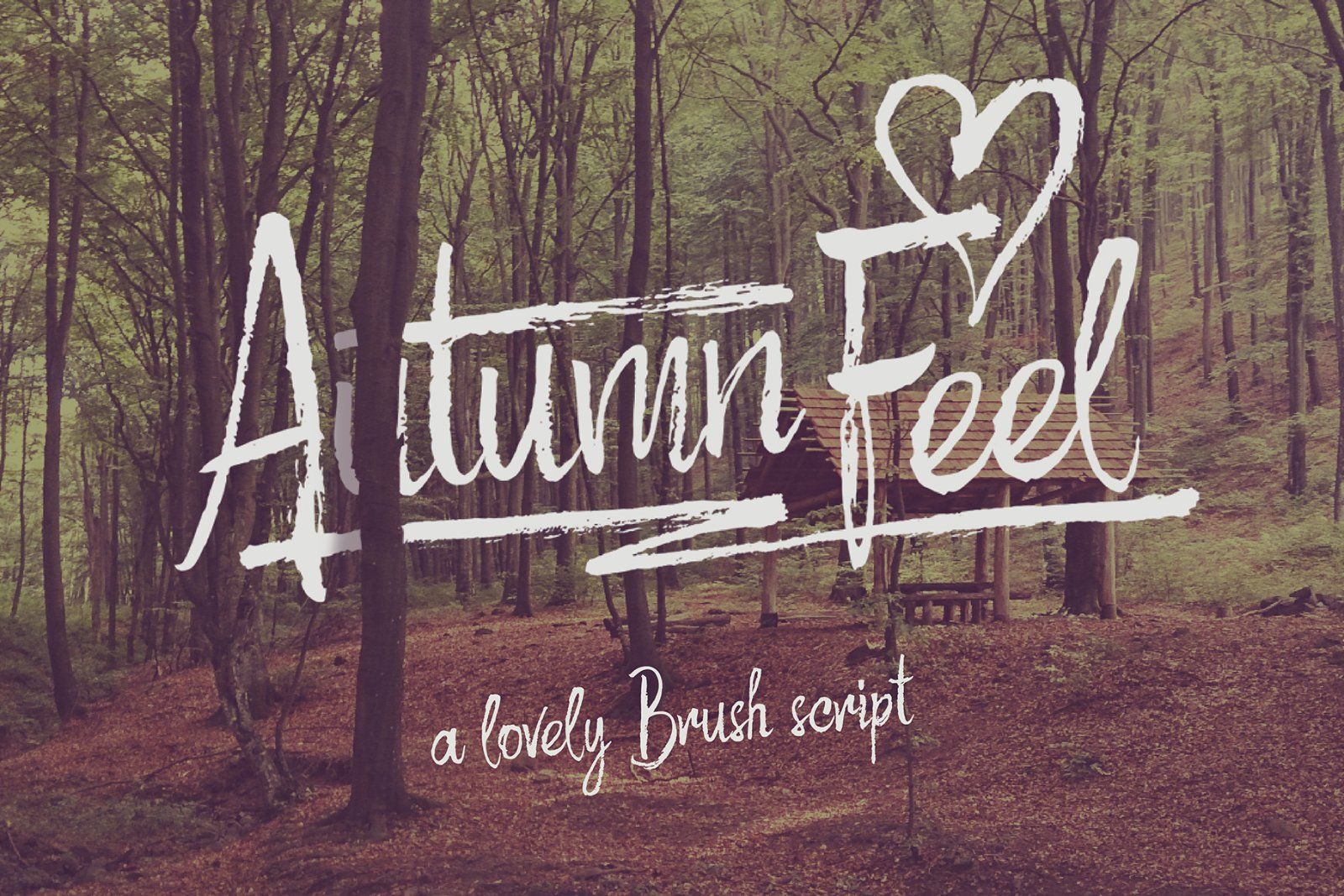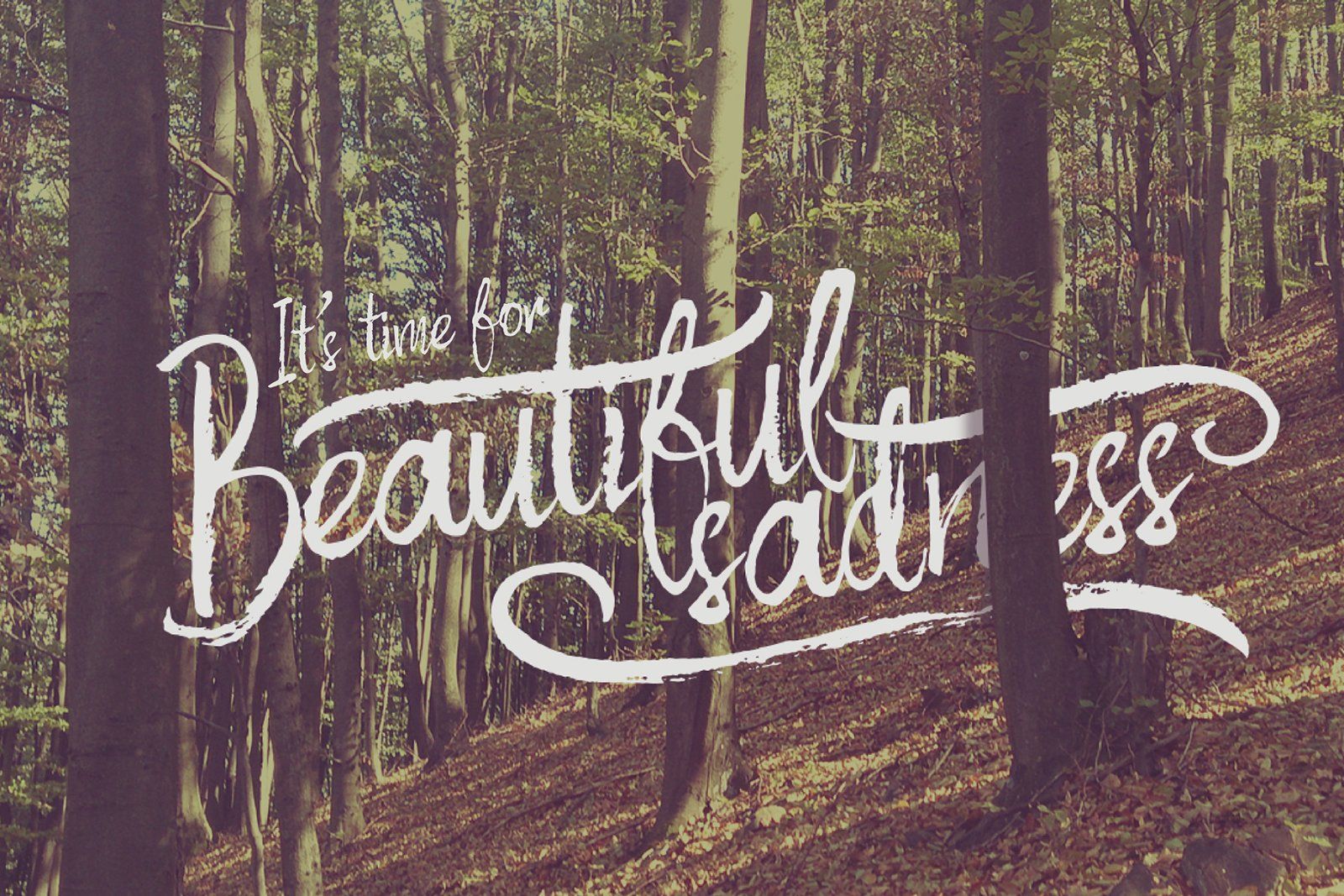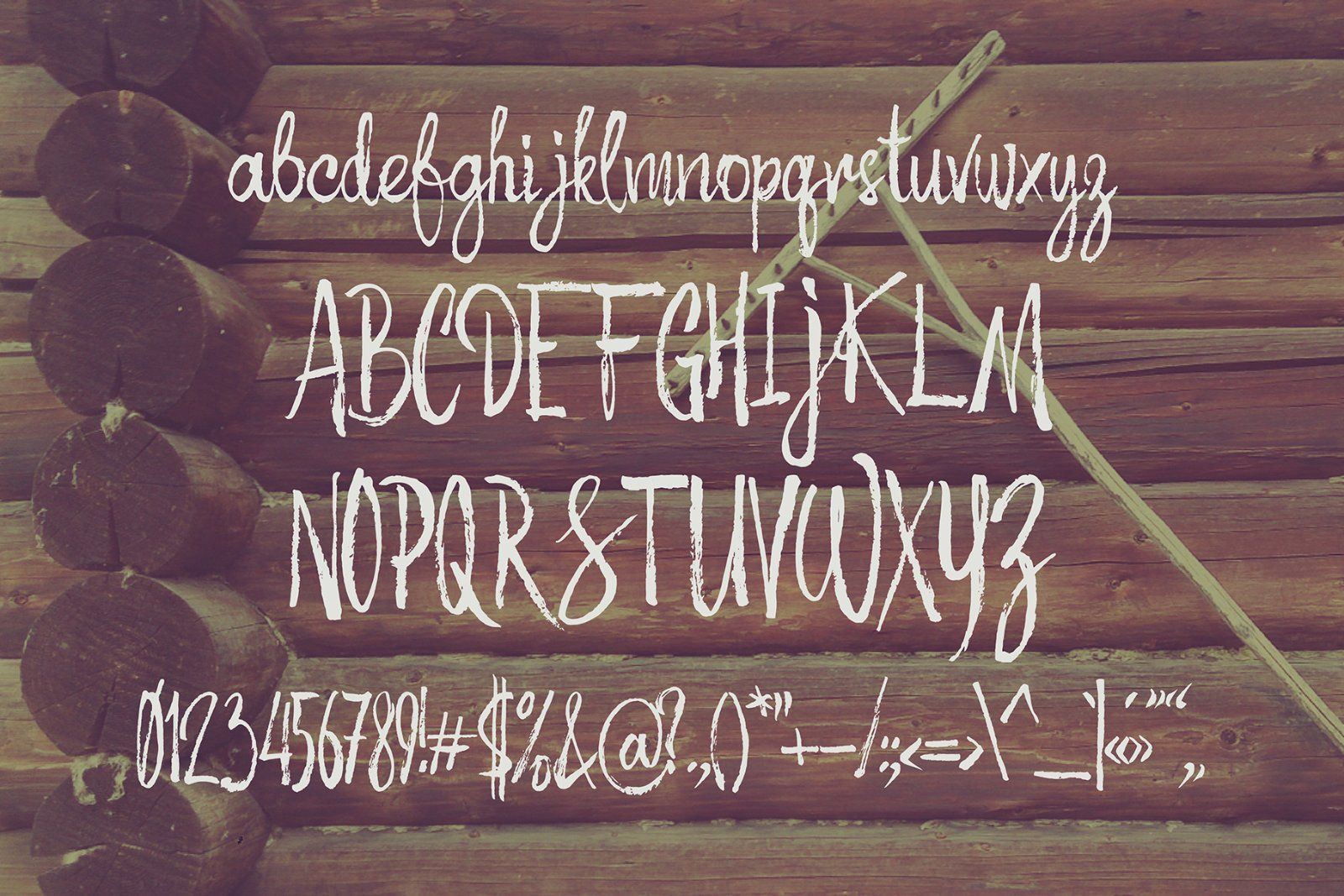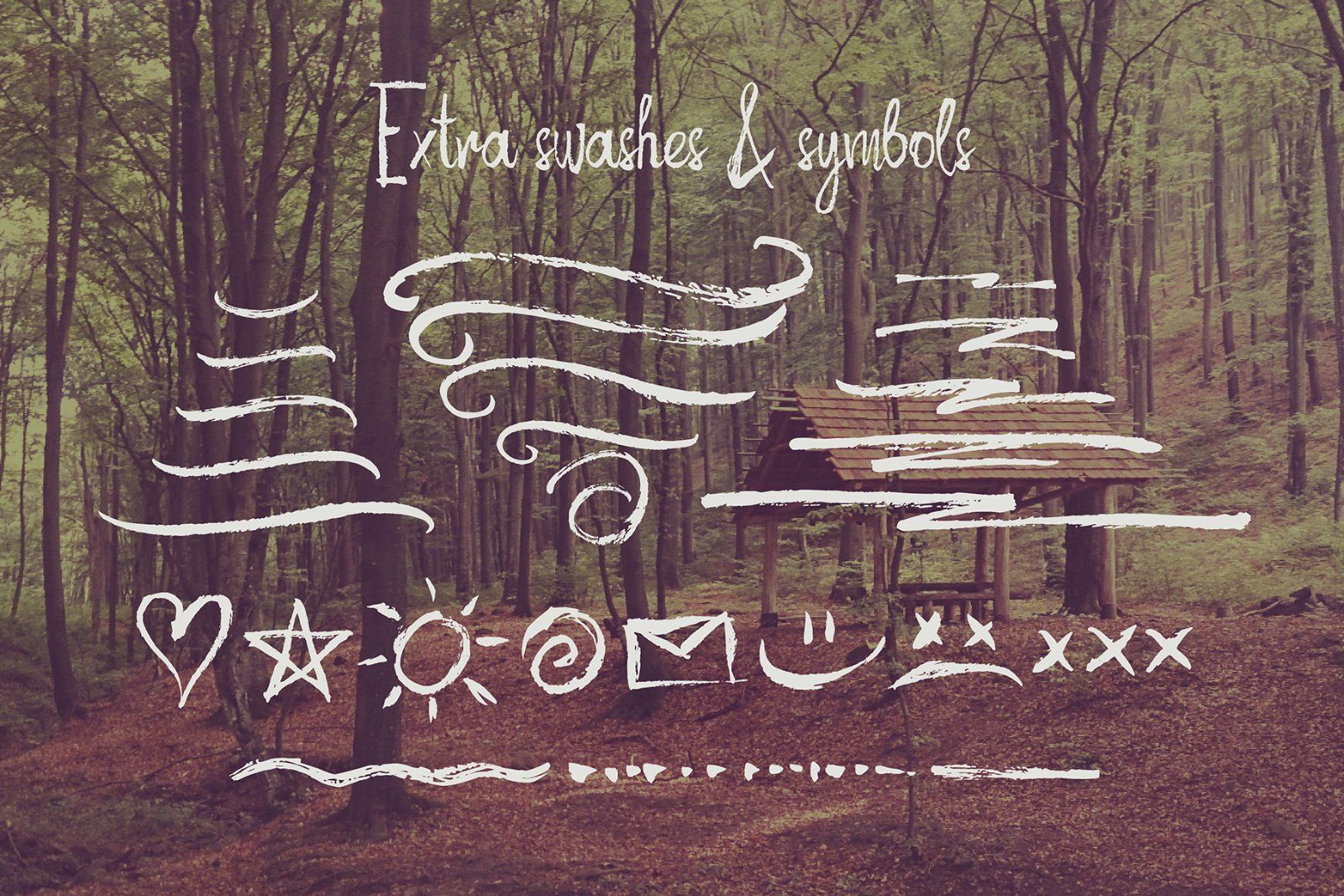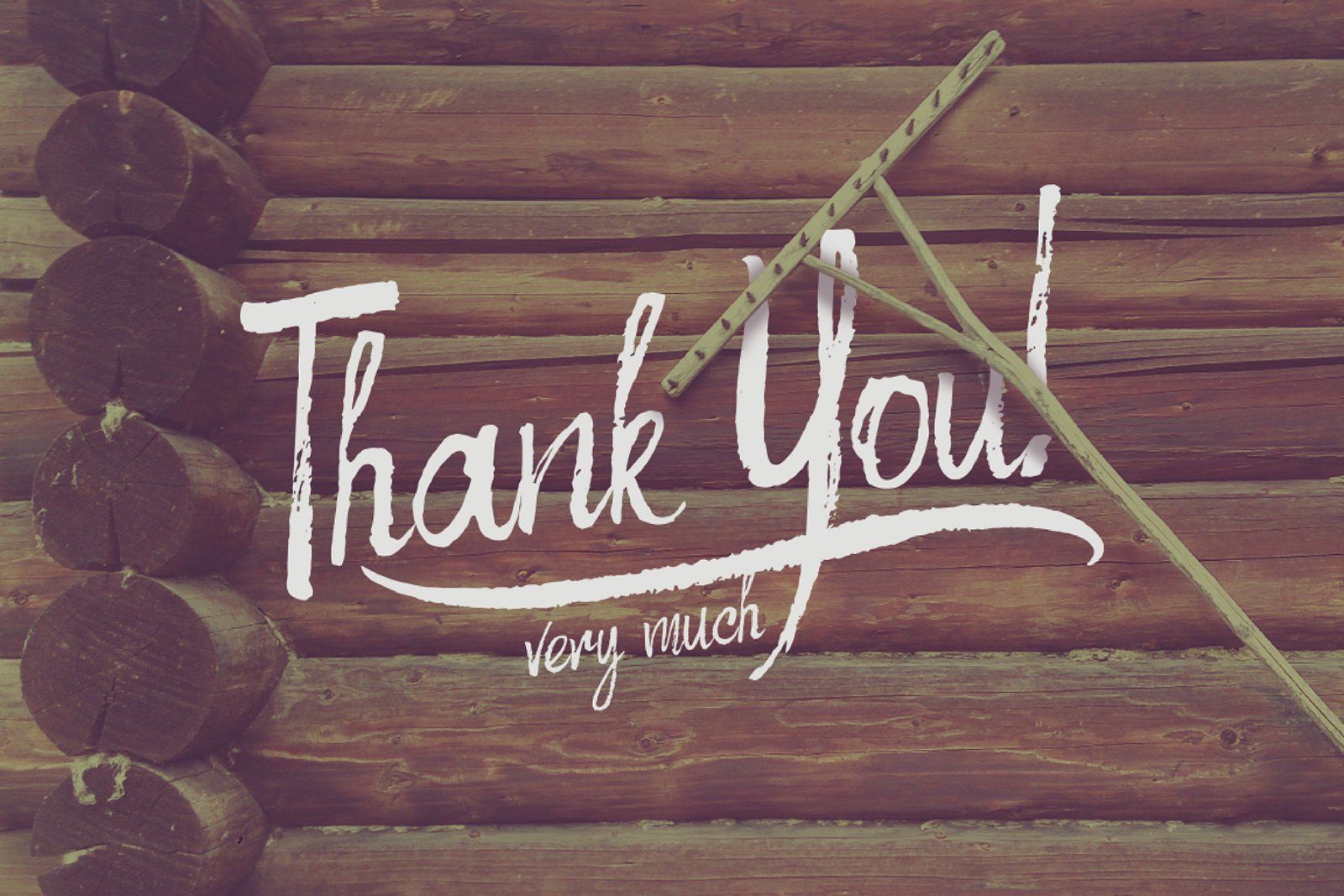
Hello! Presenting a hand drawn calligraphic script Autumn Feel. It's made with a dry brush and has a useful extra set of various swashes and dynamic strokes (fourth screenshot). This extra items can be found in an additional font files Autumn Feel Extras or in included vector eps.
Note: This font contains only Latin characters (all available characters you can see on the third screenshot). Background photos are not included in this product.